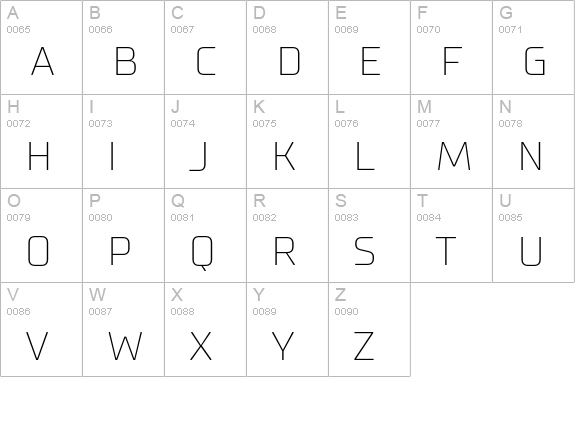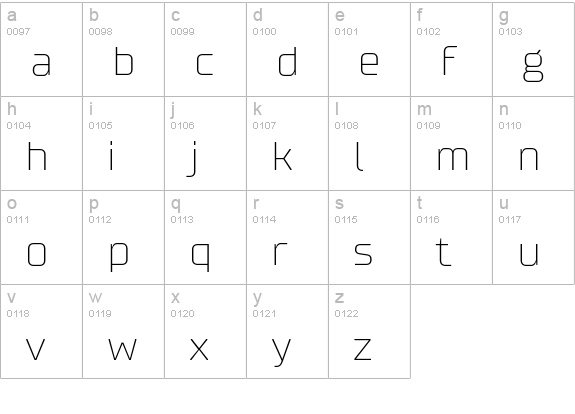
Supermolot Thin Font Details
Supermolot Thin is a delicate, low-contrast variant in the Supermolot typeface family \xE2\x80\x94 well suited to fashion editorial, minimal branding, and high-contrast display.
Supermolot Thin font is a sleek and elegant typeface that exudes modern sophistication. With its clean lines and slender design, this font is perfect for adding a touch of refinement to any project. Whether you're designing a logo, creating a poster, or crafting a website, Supermolot Thin will elevate your work to the next level. The best part? Supermolot Thin font is completely free to download at FontsMarket.com. That's right, you can access this beautiful font at no cost and use it in your commercial and personal projects without any restrictions. Say goodbye to expensive font licenses and hello to endless creative possibilities with Supermolot Thin. Download it today and make your designs stand out with this stunning typeface.